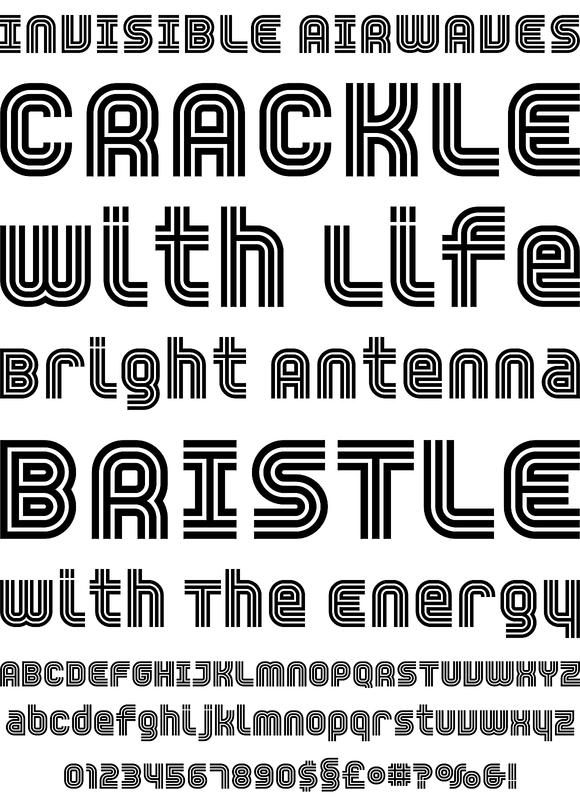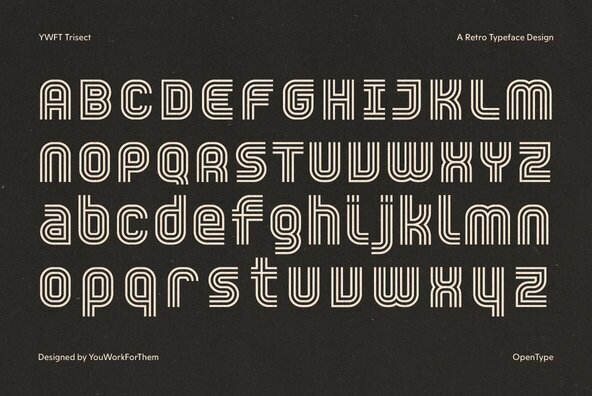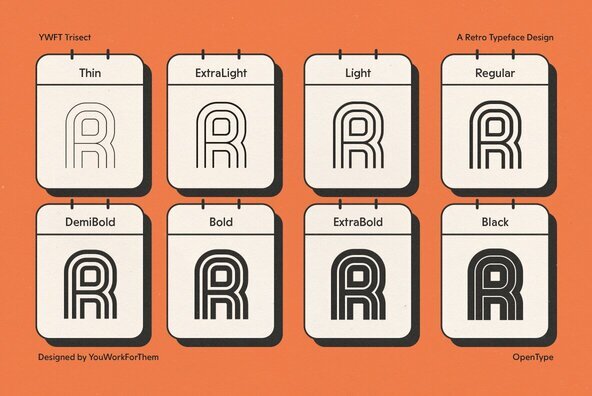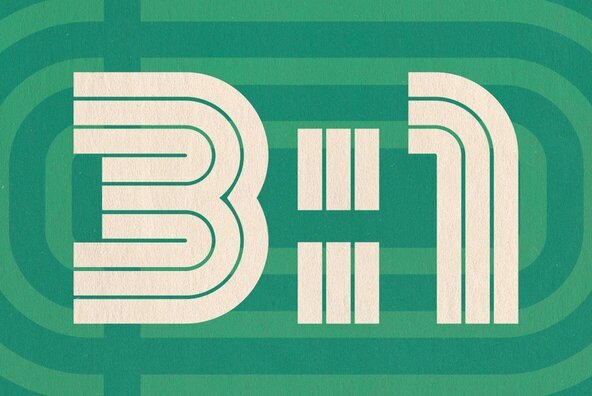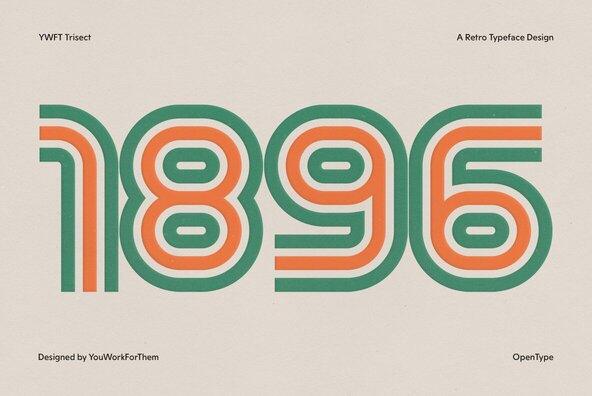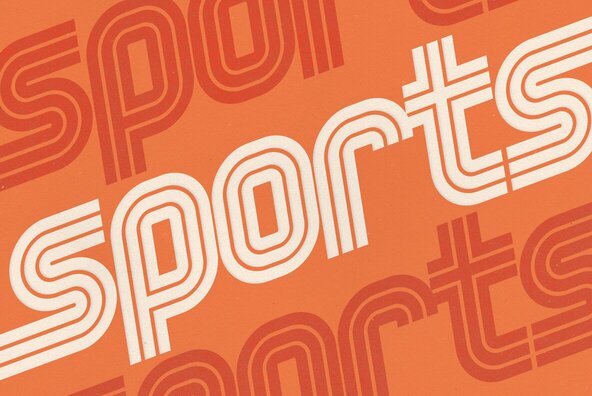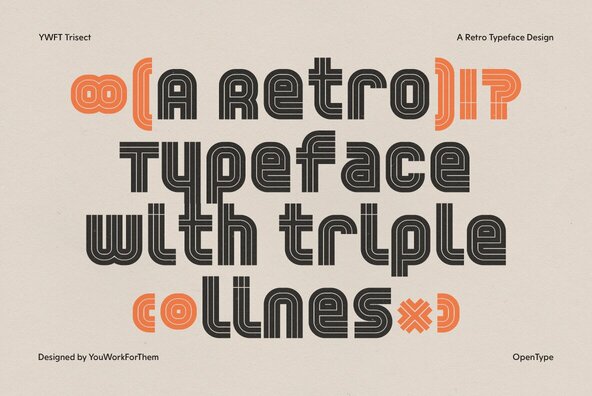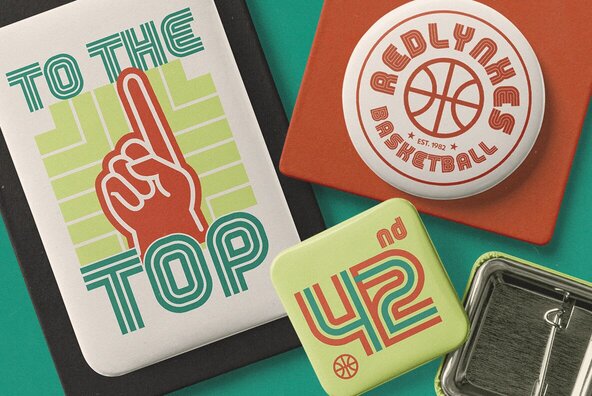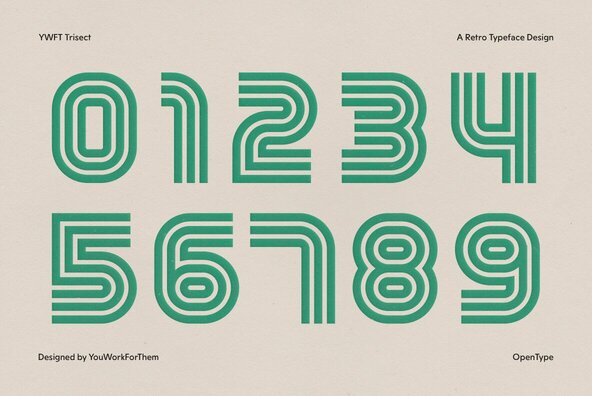
YWFT Trisect Font
YWFT Trisect is a bold, sans-serif typeface inspired by the triple line numbers on retro soccer and football jerseys. Designed by YouWorkForThem in the early 90s and released in 1999, this geometric font features a distinct linear striped fill that gives it a three-dimensional appearance, adding depth and movement to your designs. Inspired by art deco styles and retro sports aesthetics, YWFT Trisect brings a sense of energy and vibrancy to any project. Its bold, linear design is perfect for sports team logos, vintage-themed branding, and dynamic headlines. YWFT Trisect combines retro style with contemporary versatility, making it a must-have for designers seeking a bold, geometric sans-serif font. Available with flexible licensing options, this font is an affordable, subscription-free solution for all your design needs. Experience the dynamic design of YWFT Trisect and add a bold, retro flair to your projects today. Additional products used for slideshow images:YWFT Trisect: A Bold Retro Sans-Serif Font for Sports and Dynamic Design
Key Features of YWFT Trisect
Ideal Uses for YWFT Trisect
Font Design Inspiration
Why Choose YWFT Trisect?